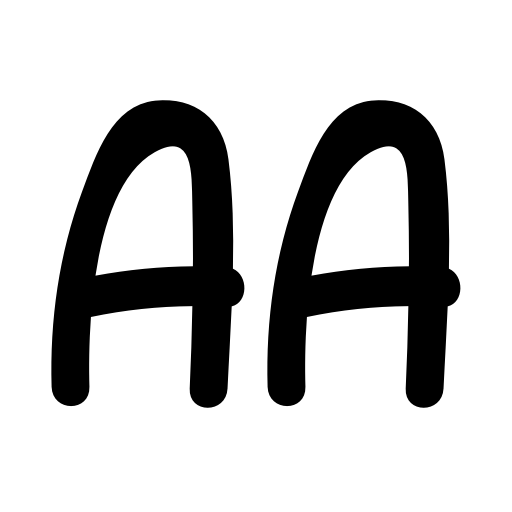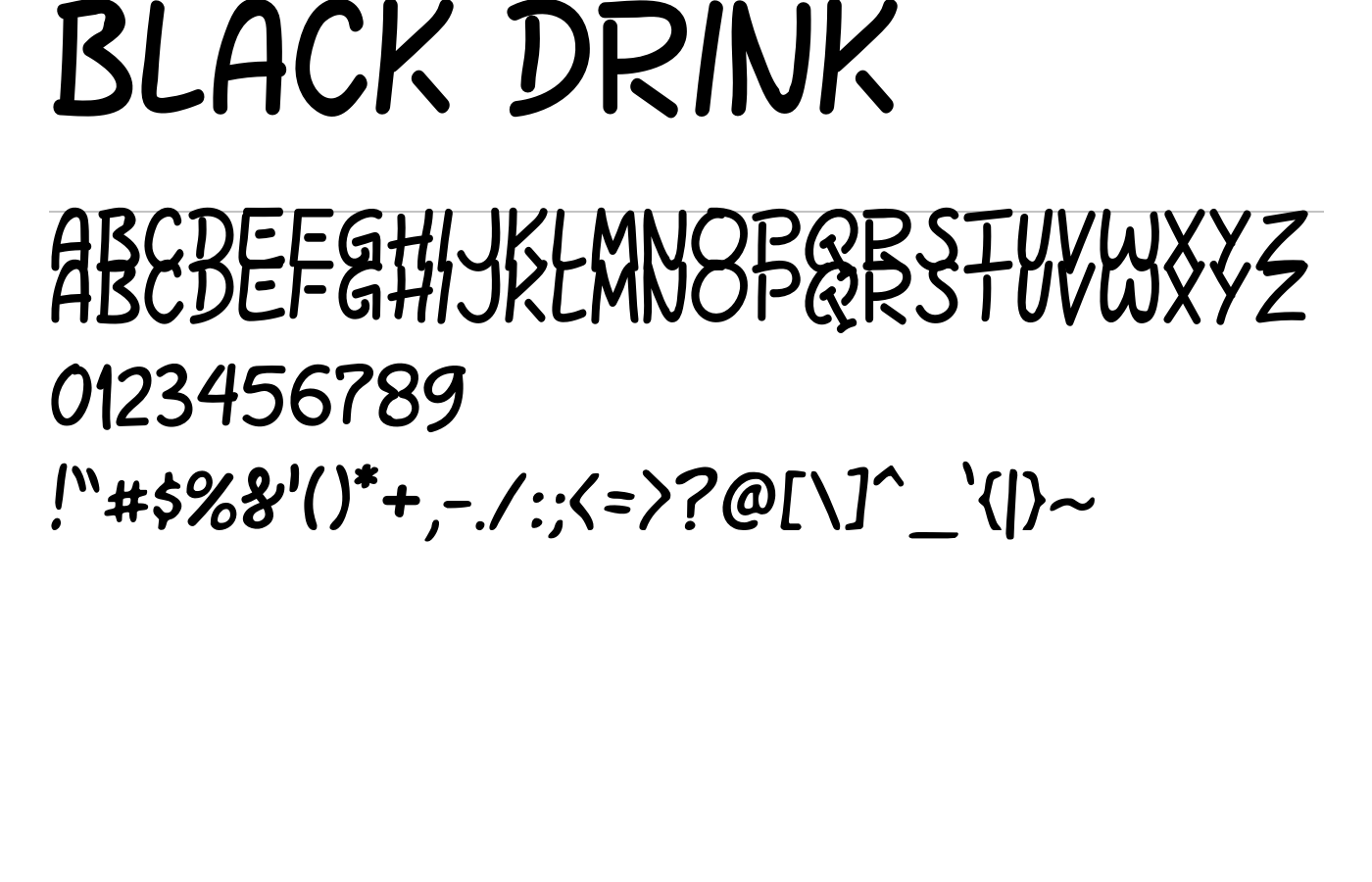
BLACK DRINK is a playful, hand-drawn sans serif font with a casual and organic feel. Its irregular stroke widths and quirky letter shapes convey a lively, informal personality, making it ideal for creative projects, children's materials, or branding that aims to feel approachable and fun. This font works well in headlines and packaging where a unique, friendly touch is needed.
BLACK DRINK Font
About BLACK DRINK Font
| Font family | BLACK DRINK Font |
| Designer | Doni Dorra |